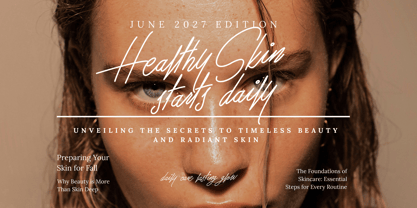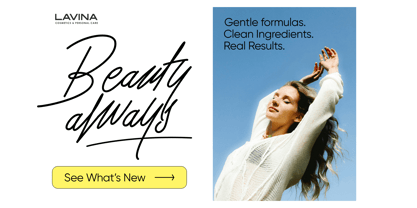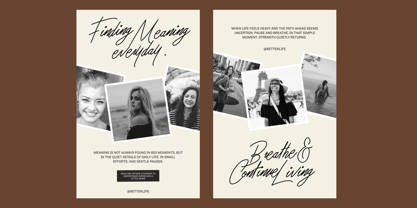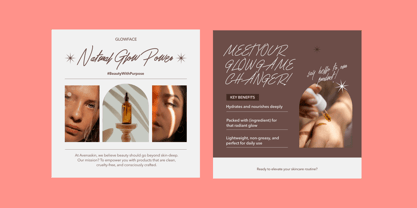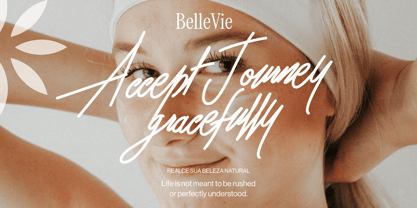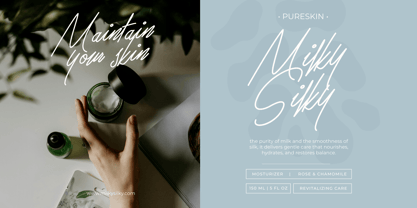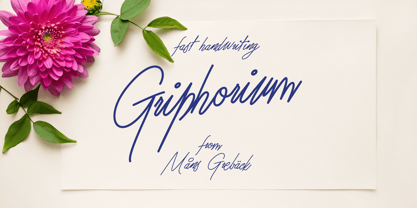
Griphorium
por Mans Greback
La familia tipográfica Griphorium fue diseñada por Måns Grebäck y publicada por Mans Greback. Griphorium contiene 2 estilos y opciones de paquete familiar. Más información sobre esta familia
Griphorium is a fast handwriting script with a clear sense of movement. It feels written in one go, where the hand rarely slows down and each letter follows the next with natural momentum. The shapes are slightly sharp and energetic, avoiding softness in favor of precision and flow. Connections are quick and confident, keeping small irregularities that make the writing feel human and unforced rather than carefully styled. Designed by Mans Greback, Griphorium focuses on the moment of writing itself. It reflects the character of notes, names, and short lines written with intent, capturing the rhythm of handwriting that values speed, clarity, and personal expression.
Måns Grebäck is a type designer and font creator specializing in script typography, but with a portfolio containing a vast selection of styles. Typefaces from Måns Grebäck are used as company and product logotypes, as well as headlines and in advertisement by a wide range of industries world-wide. Founded by Måns Grebäck in 2010, Mans Greback AB originally went under the name of Mawns Fonts and later Aring Typeface AB. While the foundry has its seat Örebro, Sweden, Måns also lives in Portugal. The Premium Foundry page can be viewed Here.